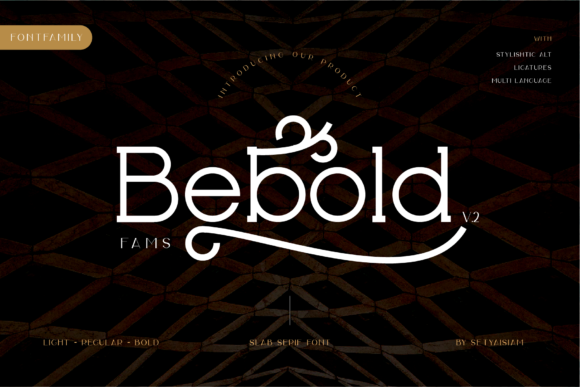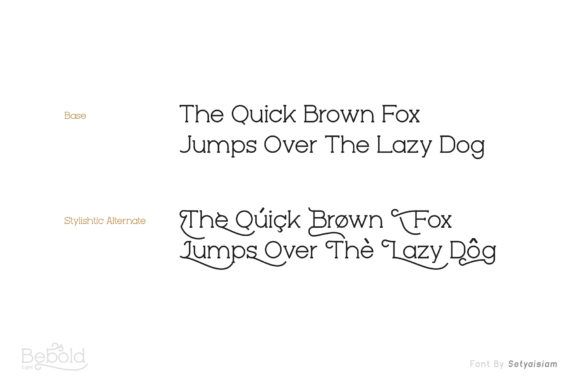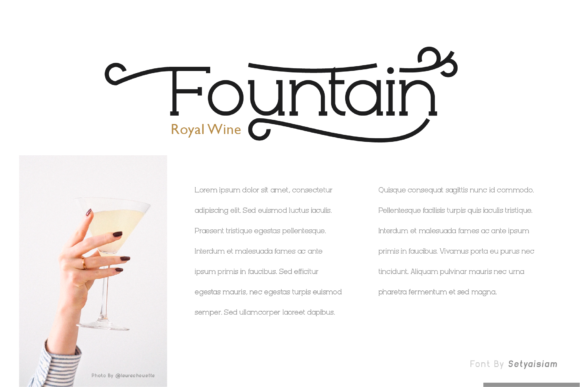
Bebold: A Cool and Trendy Slab Serif Font
Bebold is a distinctive slab serif font that combines coolness with a fun and trendy aesthetic. This versatile typeface is designed to be an incredible asset to your font library, with the potential to elevate any creation regardless of the topic.
Key Features of Bebold
- Cool Design: Features a modern and appealing appearance that resonates with contemporary design trends.
- Fun Aesthetic: Incorporates playful elements that add a lively touch to designs.
- Trendy Look: Aligns with current typographic styles, making it perfect for up-to-date projects.
- Slab Serif Structure: Maintains the characteristic thick, rectangular serifs typical of slab serif fonts.
- Versatile Application: Suitable for a wide range of projects, from print to digital media.
- Elevating Quality: Designed to enhance and improve the visual appeal of any creative project.
Ideal Uses for Bebold
Bebold’s unique characteristics make it particularly well-suited for:
- Modern branding and logo design
- Eye-catching headlines and titles
- Social media graphics and digital content
- Poster and advertisement layouts
- Packaging design for trendy products
- Website headers and digital interfaces
When incorporating Bebold into your designs, consider the following tips:
- Use for headlines or short blocks of text to maximize its cool and trendy impact
- Experiment with different sizes to highlight the font’s unique details
- Consider pairing with simpler sans-serif fonts for body text to create contrast
- Take advantage of its versatility across various topics and themes
Bebold is an excellent choice for designers looking to add a cool, fun, and trendy slab serif font to their typographic toolkit. Its ability to elevate designs makes it stand out in the world of typography. Whether you’re working on branding, creating layouts for digital media, or developing content for any topic, Bebold offers the perfect blend of coolness and trendiness.
Add Bebold to your font library and explore how it can elevate your designs with its cool and trendy style. From eye-catching headlines to impactful branding elements, this font provides the tools to create memorable typography that enhances any creation, regardless of the topic.